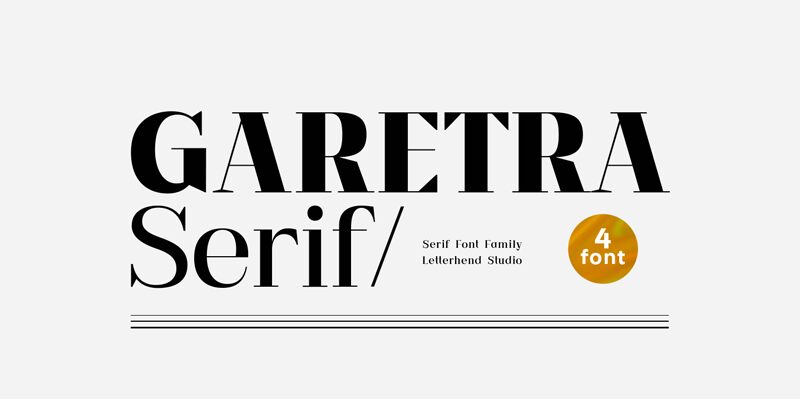
Garetra is a stunning serif font designed by Letterhend Studio. Its semi-light weight makes it ideal for elegant and refined projects that require a touch of sophistication. The classic, yet modern design of Garetra is perfect for luxury branding, editorial design, and high-end packaging. Its clean lines and delicate curves make it easy to read on both print and digital mediums. Whether you're designing a wedding invitation or a fashion magazine, Garetra will add an extra layer of charm to your project. Elevate your designs with this beautiful semi-light font that exudes elegance and grace.